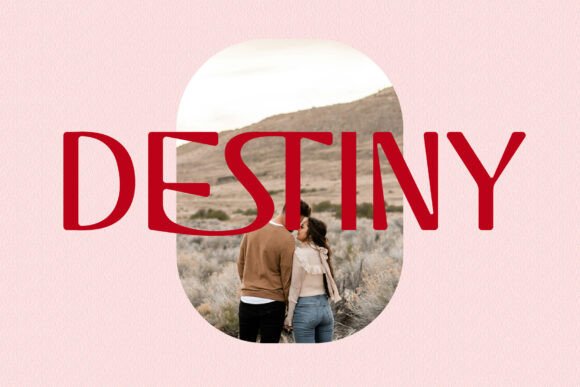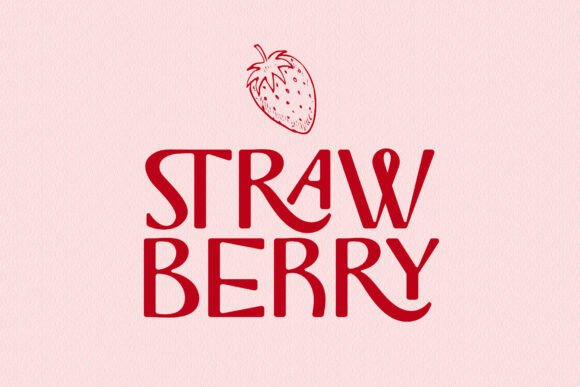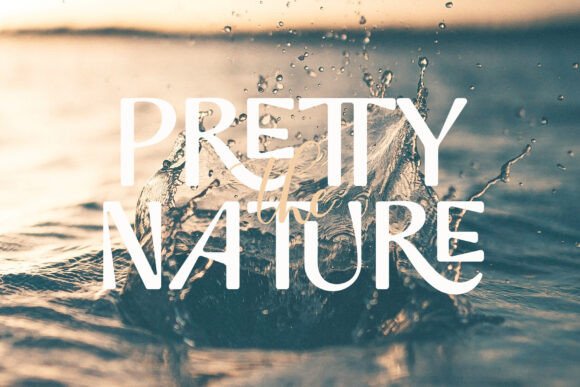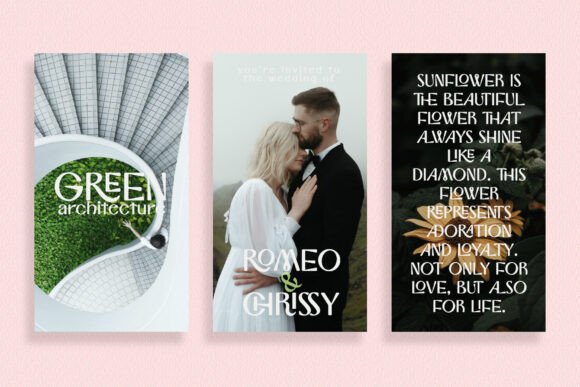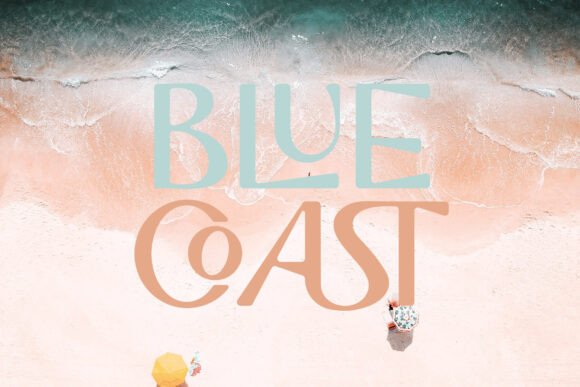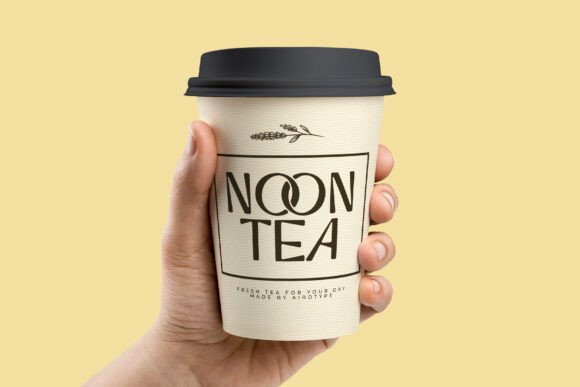
Discover the Blooming Beauty of Broadway Flower Font
Have you ever sat at your desk, staring blankly at a blank page, trying to come up with the perfect design for a client or project? The words just aren’t flowing, and your creativity is stuck in a rut. Suddenly, a spark of inspiration hits, and you remember a font that’s been hiding in your toolbox – the elegant, modern, and luxurious Broadway Flower Font.
Broadway Flower Font is a stylish sans serif font that’s perfect for any project with a modern theme. With its clean lines and limited ligatures, it offers endless design possibilities. This versatile font is ideal for logo design, crafting, wedding invitations, posters, branding, photography, and more. Whether you’re a seasoned designer or just starting out, Broadway Flower Font is a valuable addition to your toolkit.
- Unique Characteristics: Hand-drawn, floral, and whimsical design; perfect for adding a touch of elegance and sophistication to various designs
I recently had the chance to work with the Broadway Flower Font, and I have to say, it’s a real showstopper! ✨ The first thing that caught my eye was the beautiful, hand-drawn style of the font. It’s perfect for adding a touch of whimsy and elegance to any design project.
- Unique, hand-drawn style that sets it apart from other fonts
- Perfect for creating a sense of wonder and magic in your designs
- Works well for titles, headings, and other text elements that need a bit of flair
- May not be suitable for body text, as it can be difficult to read at small font sizes
- Some of the characters may not be as detailed or well-designed as others
- Can be a bit too “flowery” for some designs, so use it sparingly
Overall, I think the Broadway Flower Font is a great addition to any designer’s toolkit. While it may have a few limitations, its unique style and charm make it perfect for adding a touch of magic to your designs. ✨ Just be sure to use it judiciously and pair it with other fonts that complement its whimsical feel.
The Broadway Flower Font is perfect for:
- Birthday and holiday cards
- Floral-themed designs and branding
For best results, use the font in conjunction with floral patterns and images to create a cohesive and visually appealing design.